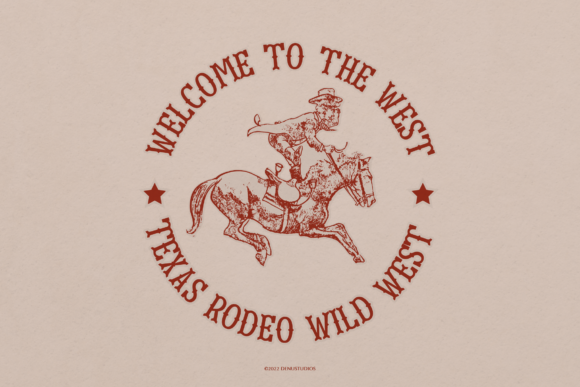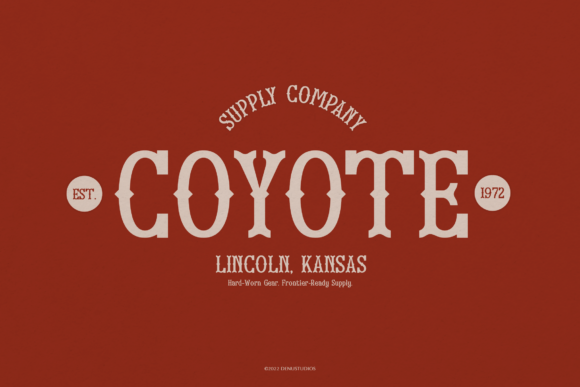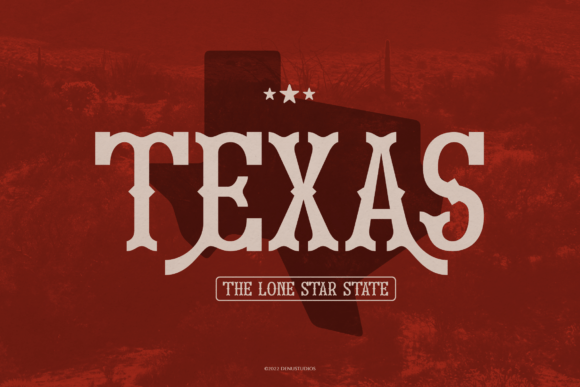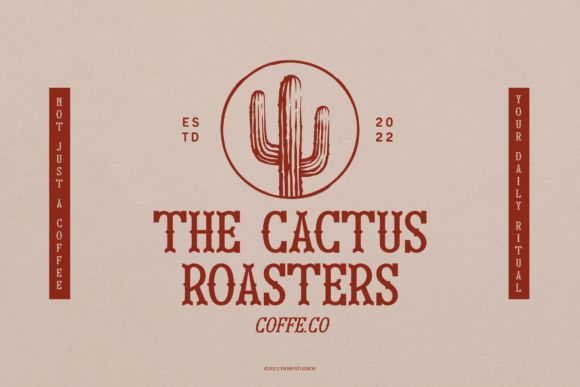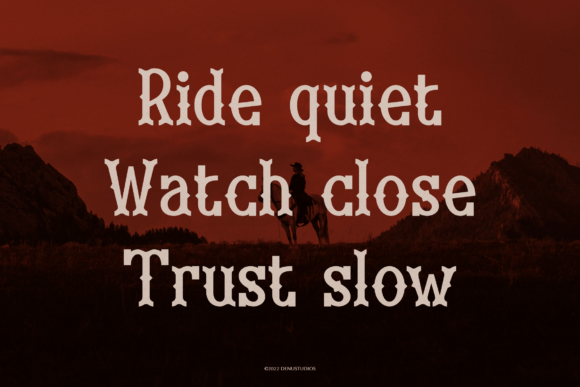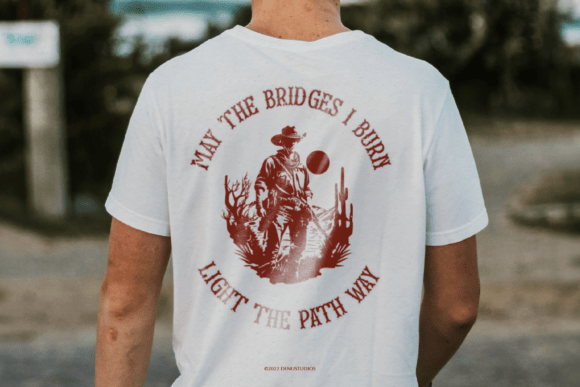
The Wild West of Typography: Discovering Drexia Font
I still remember the design project that led me to Drexia Font. I was working on a vintage-themed logo for a client’s cowboy-inspired brand, and I was struggling to find the perfect font. I scoured the internet, tried out countless fonts, but nothing seemed to capture the rugged charm and classic Western aesthetics I was looking for. That was until I stumbled upon Drexia Font. ✨
A Personal Review of Drexia Font
As I started using Drexia Font, I was immediately impressed by its bold, decorative slab serif design. Here are what I love about it:
- ✅ Over 300 glyphs, ligatures, alternates, and multilingual support – it’s a treasure trove of typographic possibilities!
- ✅ Perfect for vintage logos, cowboy-themed branding, posters, saloon signage, and anything that needs that wild west flair.
- ✅ The font’s rugged charm and classic Western aesthetics are spot on – it’s like a breath of fresh air for my designs.
Of course, no font is perfect, and Drexia Font has a few small quirks:
- ⚠️ Some users might find the font a bit too bold or overpowering for certain designs.
- 🤔 The font’s extensive feature set can be a bit overwhelming for beginners – it takes some time to get familiar with all the glyphs and alternates.
The Story Behind Drexia Font
Drexia Font was inspired by the classic Western aesthetics of the American frontier. Imagine the dusty streets of a Wild West town, the wooden facades of saloons, and the rugged charm of cowboy culture. The font’s creator aimed to capture this essence in a bold, decorative slab serif design that’s perfect for adding a touch of the Wild West to your designs.
| Font Name | Drexia Font |
| Author | Denustudios |
| Q: What type of designs is Drexia Font best suited for? | A: Drexia Font is perfect for vintage logos, cowboy-themed branding, posters, saloon signage, and anything that needs a wild west flair. |
| Q: Does Drexia Font support multilingual text? | A: Yes, Drexia Font has multilingual support, making it a great choice for designs that require text in different languages. |
| Q: Is Drexia Font easy to read? | A: While Drexia Font is bold and decorative, it can still be easy to read in large sizes. However, it might not be the best choice for body text or small font sizes. |